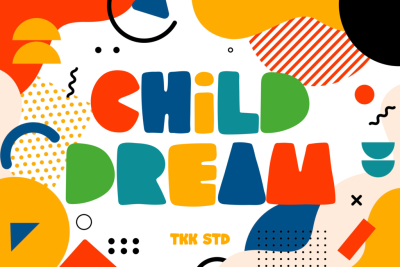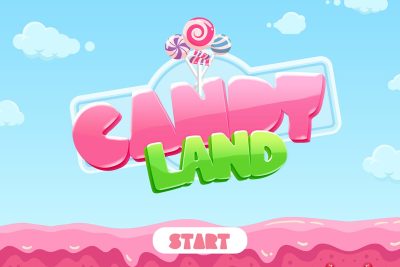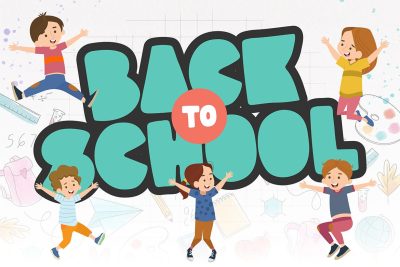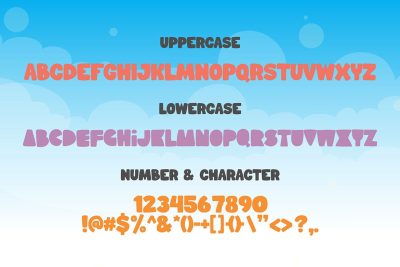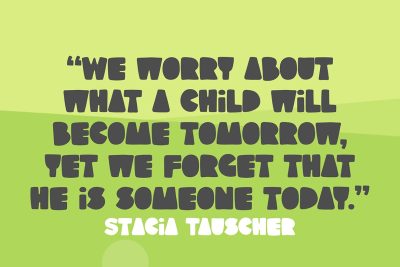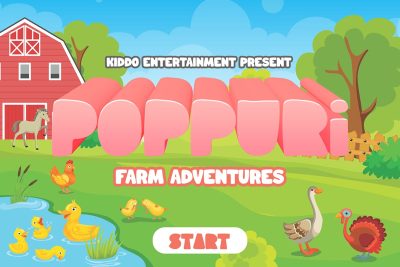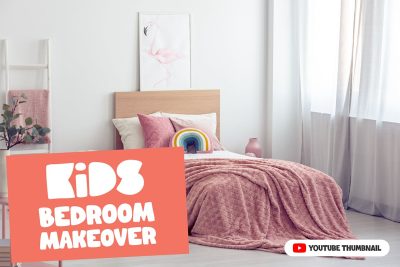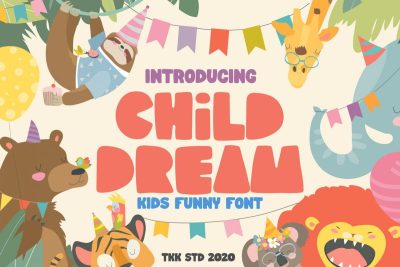
Cute Font Child Dream is a playful typeface that captures the essence of childhood wonder. This font stands out with its chunky, rounded letters that feel friendly and inviting. It draws attention with a warm, approachable style, perfect for adding youthful energy to any project. The rounded, blocky design of each letter gives it a handcrafted, imaginative feel, as if shaped by a child. This makes it ideal for projects that aim to convey fun, curiosity, and joy.
The bold, thick letters are easy to read, making the font suitable for all ages. Its simplicity enhances legibility from a distance, ideal for headers, titles, and signage that need to stand out. Despite its simplicity, each letter has a unique personality, adding to the theme of creativity and playfulness. The fontโs cheerful appearance is perfect for designs aimed at young audiences or those wanting a playful vibe. The design is visually pleasing without being complex, making it great for both digital and print media.
Cute Font Child Dream pairs well with colorful backgrounds and minimalist settings. Its versatility allows it to adapt to multiple styles while delivering positivity and joy. Whether used with illustrations, photos, or simple color schemes, it reinforces a playful yet professional appeal. Cute Font Child Dream is a fantastic choice for designers seeking a font that adds happiness and innocence to their projects.
Cute Font Child Dream Who is it Suitable For?
This font is ideal for creative professionals and brands that want to appeal to young audiences or evoke childlike wonder. It suits projects related to childrenโs products, like educational toys, games, books, and school supplies. Educators, teachers, and content creators will find it perfect for making engaging learning materials, such as classroom posters and activity sheets. Its friendly design encourages kids to engage with the content, making it great for young learners.
For family-friendly businesses like toy stores, childcare centers, and related brands, this font can help create an inviting brand identity. It also works well for event planners organizing childrenโs events, adding a joyful feel to invitations, banners, and signs.
Graphic designers creating social media content, blogs, or YouTube channels for parents, teachers, or children can benefit from this font. Its friendly look is ideal for visuals aimed at building community and connection, especially in digital spaces. Cute Font Child Dream is a fantastic choice for anyone wanting to convey joy, imagination, and creativity in their designs. Itโs a versatile option for projects that celebrate the wonder of childhood.